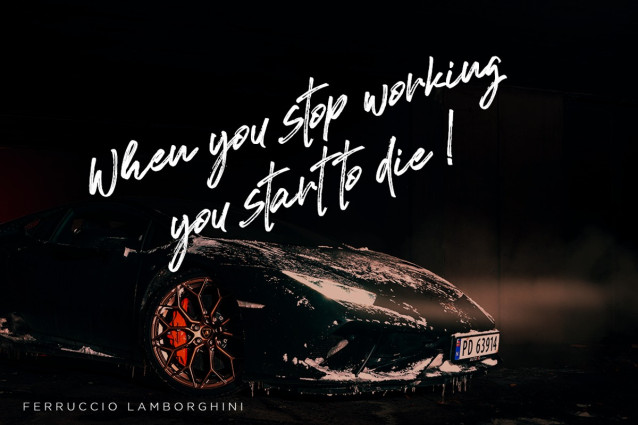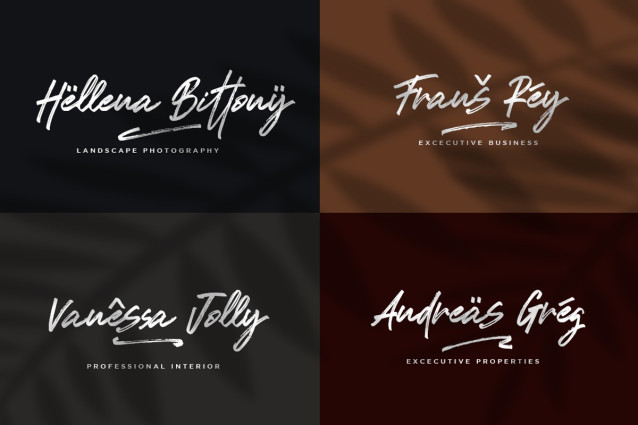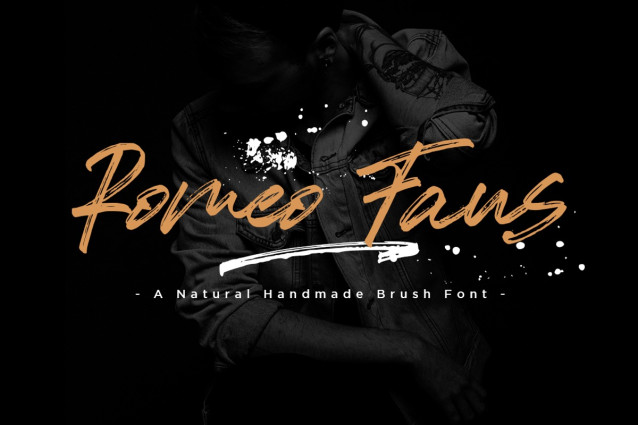
Romeo Fans Font
Romeo Fans Font is a natural brush script with texture and similar with hand written. I design it with real write my hand, I really hope you will enjoy it so much when using this font.
I love using this one with layer masks in Photoshop, really look natural written. Romeo Fans Script includes over couple ligatures to make everything look totally hand-done also with other additional features swashes and spots.